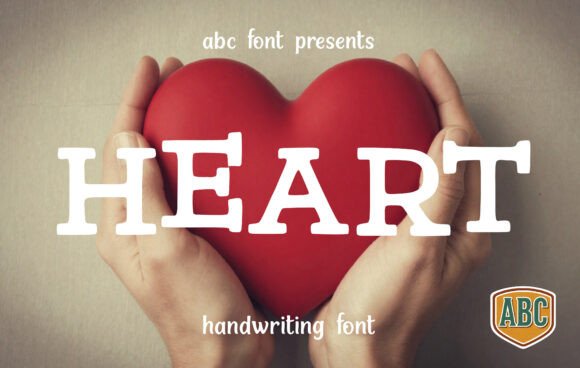
Heart: A Timeless Font for Modern Design
When it comes to typography, the choice of a font can significantly influence the tone and effectiveness of a design. Heart, a high-impact handwriting font, stands out with its unique blend of traditional aesthetics and modern functionality. Designed with a clean, traditional silhouette, this font features massive, blocky letterforms that command attention. Its thick strokes and sharp, geometric serifs contribute to a distinctive visual identity that is both striking and professional.
The personality of Heart is defined by an organized horizontal rhythm and a stable vertical axis. This balance gives the font a sense of grounded, professional clarity, making it ideal for projects that require a strong visual presence. Whether used in branding, editorial design, or architectural elements, Heart brings a classic visual weight that resonates with a broad audience.
Key Characteristics of Heart
One of the most notable characteristics of Heart is its emphasis on structure and consistency. The font’s blocky letterforms ensure that each character maintains a uniform size and proportion, which enhances readability even at larger sizes. This feature is particularly beneficial for headers and titles where clarity is essential.
The thick strokes of Heart add a sense of strength and stability, making it suitable for designs that aim to convey authority or reliability. At the same time, the sharp, geometric serifs introduce a level of sophistication that elevates the overall appearance. These details make Heart a versatile choice for various applications, from corporate branding to creative projects.
Another important aspect of Heart is its horizontal rhythm. The consistent spacing between letters ensures that the text flows smoothly and remains visually balanced. This attention to detail is crucial for maintaining legibility, especially in longer blocks of text where poor spacing can lead to reader fatigue.
Applications of Heart in Design
Heart is particularly well-suited for heritage branding, where the goal is to evoke a sense of tradition and authenticity. Its classic visual weight makes it an excellent choice for logos, business cards, and other materials that need to communicate a long-standing legacy. By using Heart, designers can create a visual identity that feels both timeless and relevant.
In the realm of romantic editorial design, Heart offers a compelling alternative to more conventional fonts. Its handwriting style adds a personal touch that can enhance the emotional impact of a piece. Whether used in wedding invitations, love-themed publications, or artistic layouts, Heart provides a unique aesthetic that captures the essence of romance.
Architectural title blocks also benefit from the use of Heart. The font’s strong, structured form aligns well with the precision and clarity required in technical documentation. By incorporating Heart into these elements, designers can achieve a professional look that complements the functional nature of the content.
Community marketing campaigns often require a font that can grab attention while maintaining a sense of approachability. Heart fulfills this need by combining boldness with readability. Its ability to stand out without overwhelming the viewer makes it an effective tool for promotional materials, posters, and signage.
Advantages of Using Heart
One of the primary advantages of Heart is its versatility. It can be used across a wide range of design contexts, from print to digital media. This adaptability makes it a valuable asset for designers who need a font that can perform well in different environments.
Another benefit of Heart is its ease of use. The font’s clear structure and consistent spacing make it straightforward to work with, even for those who are not experienced typographers. This accessibility allows a broader range of users to incorporate Heart into their projects without requiring extensive technical knowledge.
Heart also offers a distinct visual identity that sets it apart from other fonts. Its combination of blocky letterforms and geometric serifs creates a unique look that can help a design stand out in a crowded market. This individuality is especially valuable for brands looking to differentiate themselves through their visual language.
Considerations When Using Heart
While Heart is a powerful font, it is important to consider its suitability for different projects. Its bold and blocky style may not be appropriate for all design contexts. For instance, in situations where a more subtle or minimalist approach is needed, Heart might appear too aggressive or overwhelming.
Designers should also be mindful of the font’s readability at smaller sizes. Although Heart is highly legible at larger scales, its thick strokes and geometric serifs can reduce clarity when used in body text. To mitigate this, it is advisable to pair Heart with a complementary font that provides contrast and enhances overall readability.
Community marketing initiatives have similarly benefited from the use of Heart. In one case, a local event poster featured Heart as the primary font, drawing attention and conveying a sense of excitement. The font’s boldness helped the message stand out, contributing to the success of the campaign.